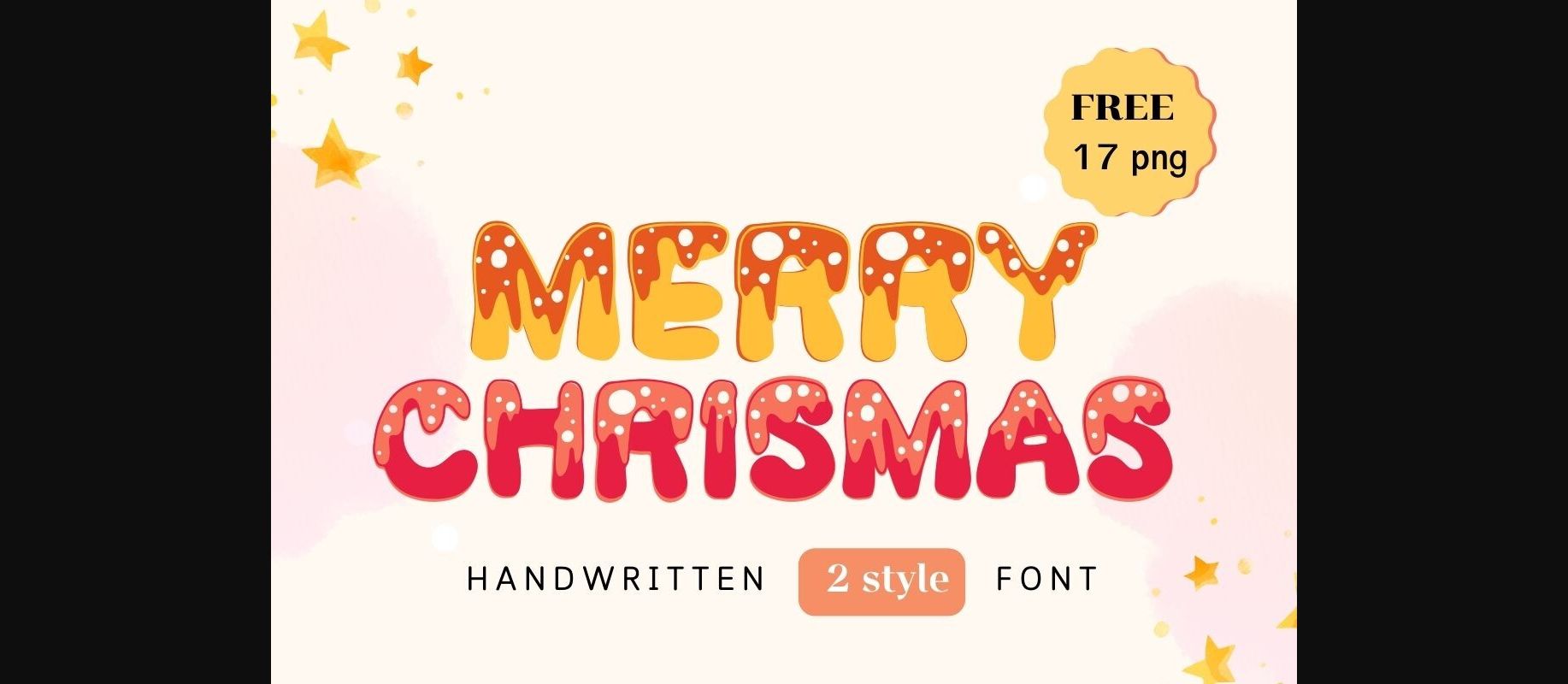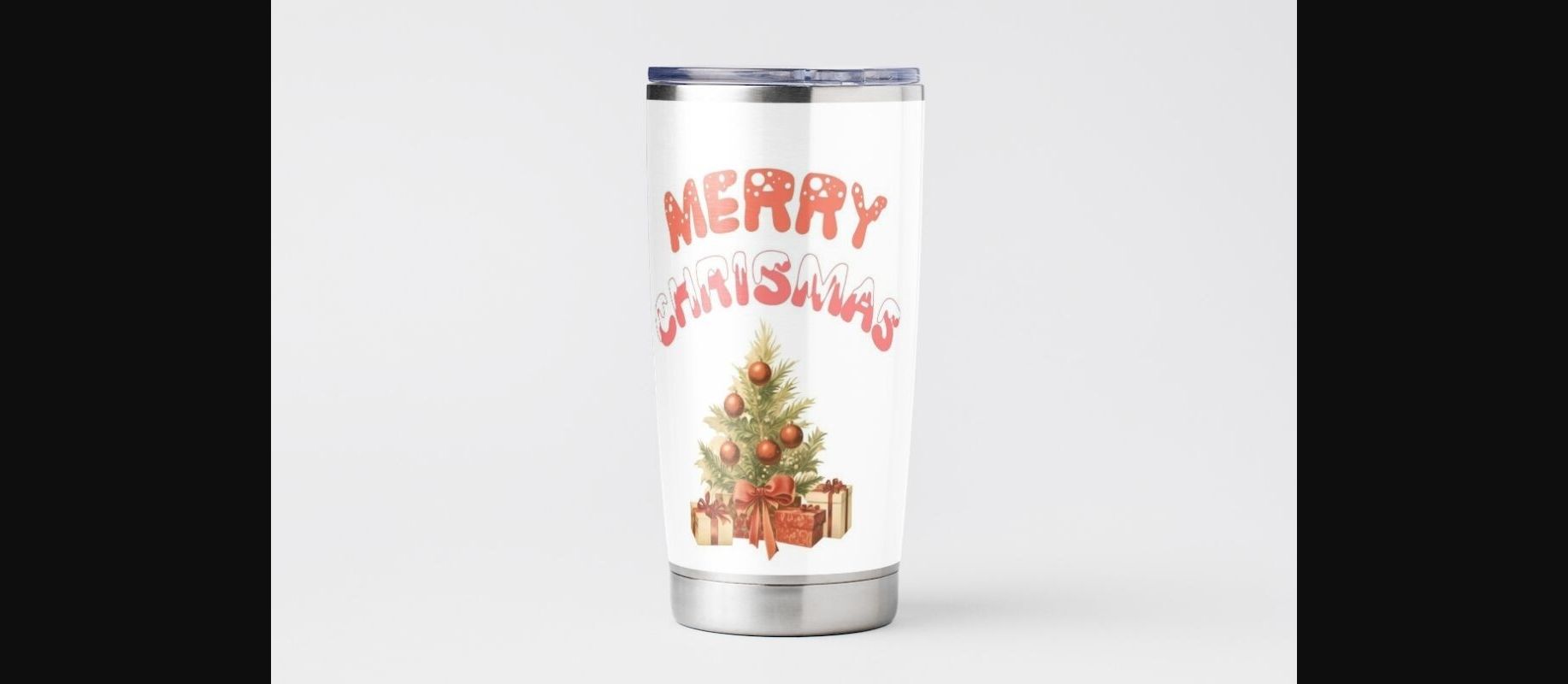
About Merry Christmas Font
Celebrate the season with “Merry Christmas,” a decorative font that sweetens your messages with the charm of cookie glaze. Each letter is adorned with festive sugary details, turning your text into a delightful treat for the eyes. Perfect for holiday greetings, cards, and festive designs, Merry Christmas adds a touch of sugary warmth to your typography, making every word a festive celebration. Bring the joy of freshly baked cookies to your designs with this sweet and charming font.